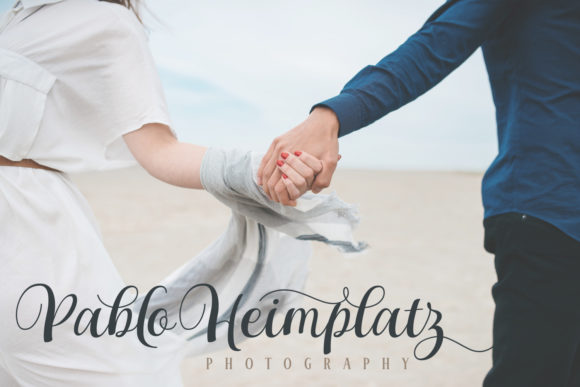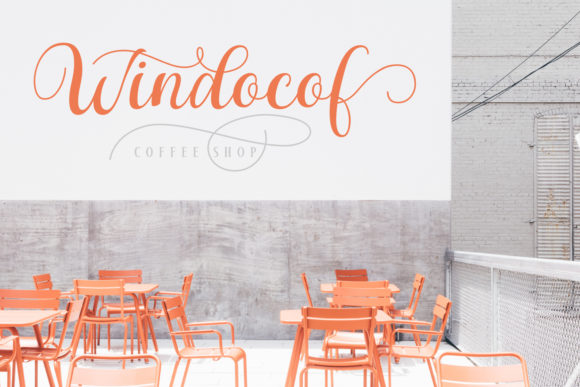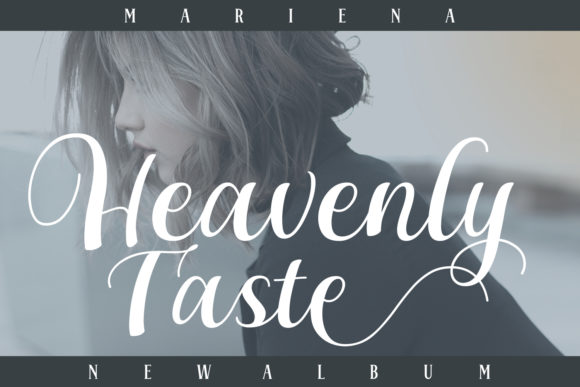
Introduction to Maxeva Font Font
Fonts play a crucial role in design, and the Maxeva Font font is a typeface that brings both character and versatility to any project. Whether you’re working on a branding project, a website, or a print design, the Maxeva Font font offers a unique style that can elevate your work.
| 📌 Font Name | Maxeva Font |
| 👤 Author | Rifki (7ntypes) |
The Maxeva is a beautiful handwritten font.
It includes amazing glyph’s which will add an elegant and luxurious touch to your designs .
Key Features of Maxeva Font Font
Why Choose Maxeva Font Font?
The Maxeva Font font is more than just a typeface – it’s a design tool that helps you communicate your message with style and clarity. Its unique character set and versatile design make it suitable for a wide range of applications, from elegant invitations to bold headlines.
With its carefully crafted letterforms and balanced proportions, the Maxeva Font font ensures readability and visual appeal across all mediums.
What makes Maxeva Font font special?
The Maxeva Font font stands out with its unique design, exceptional readability, and versatility across various design applications.